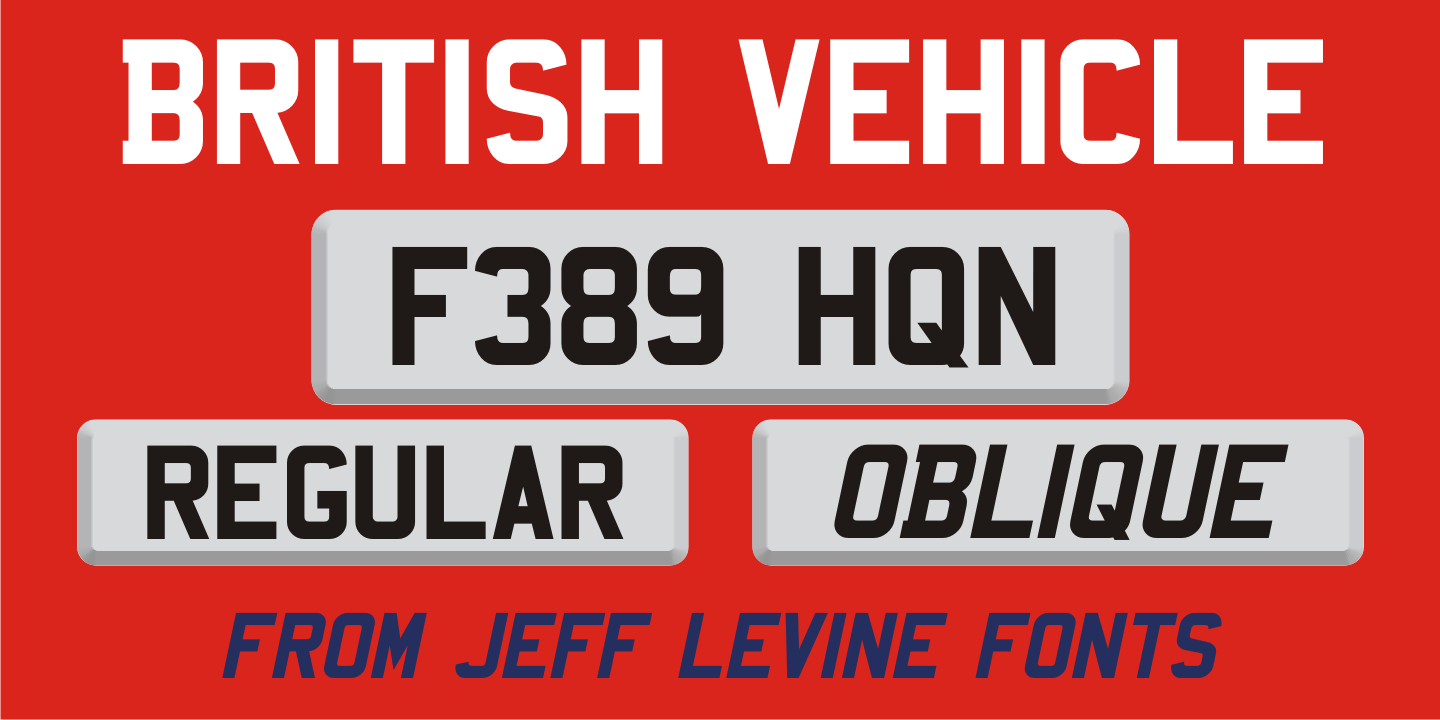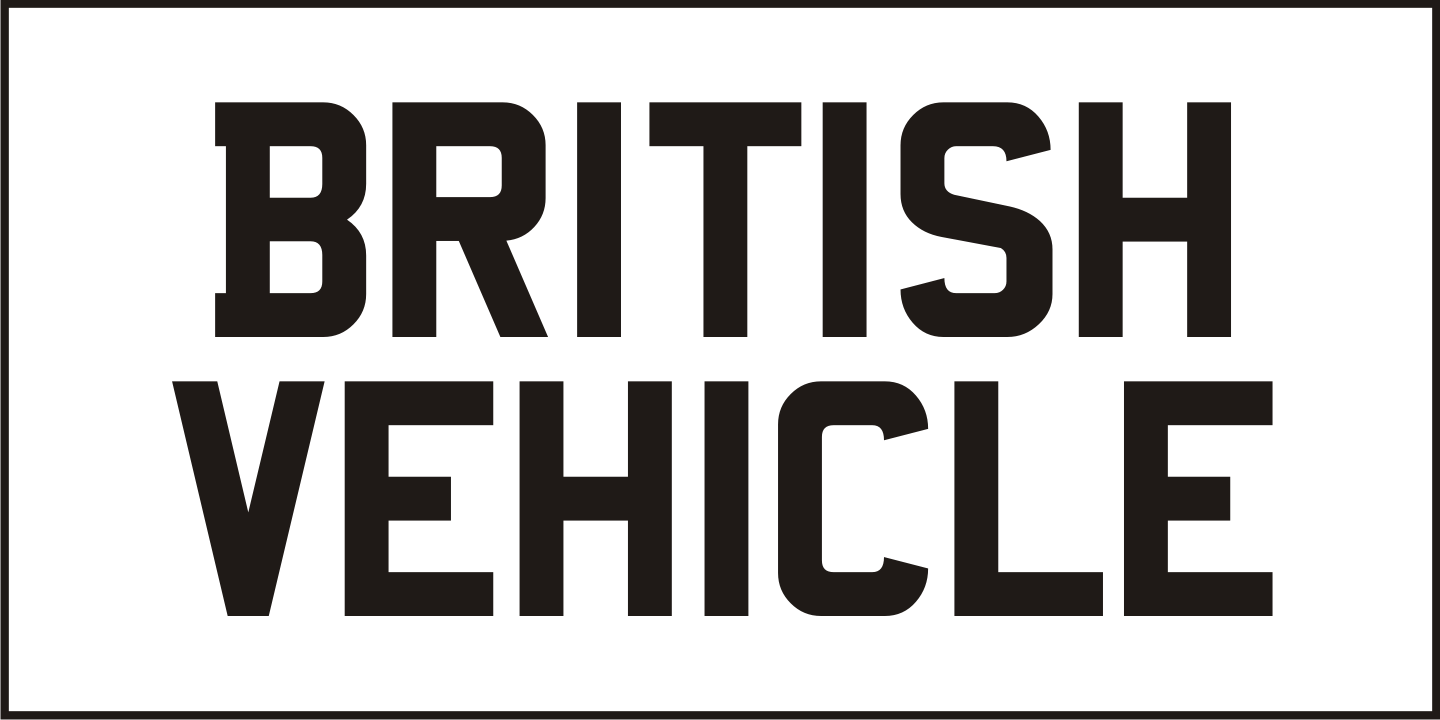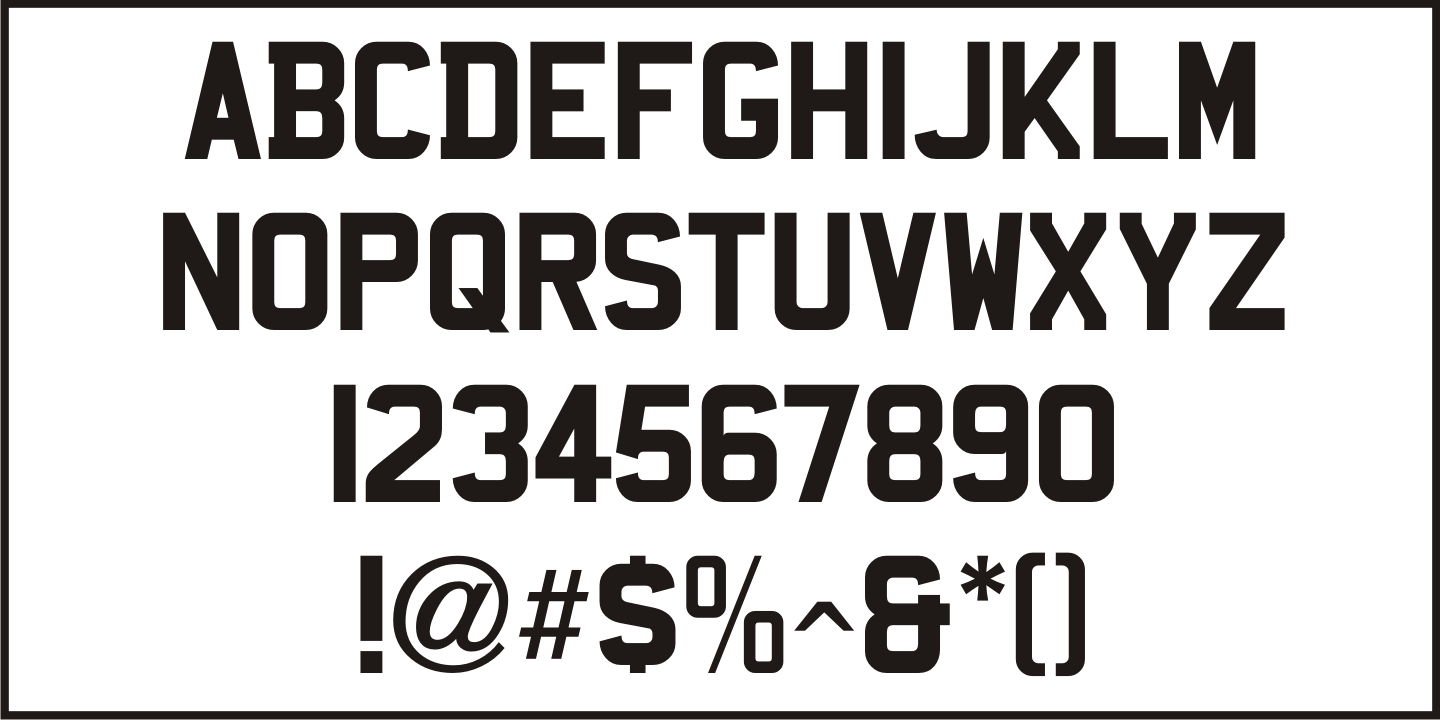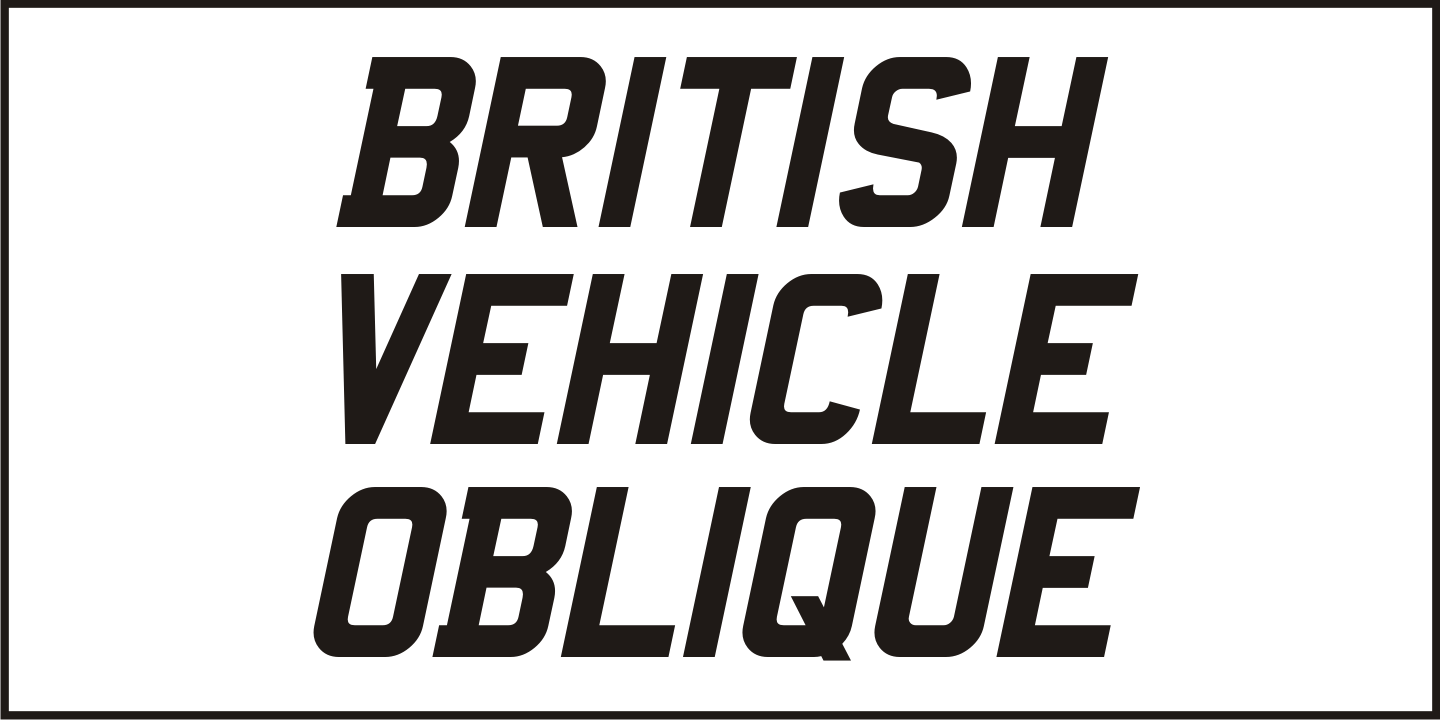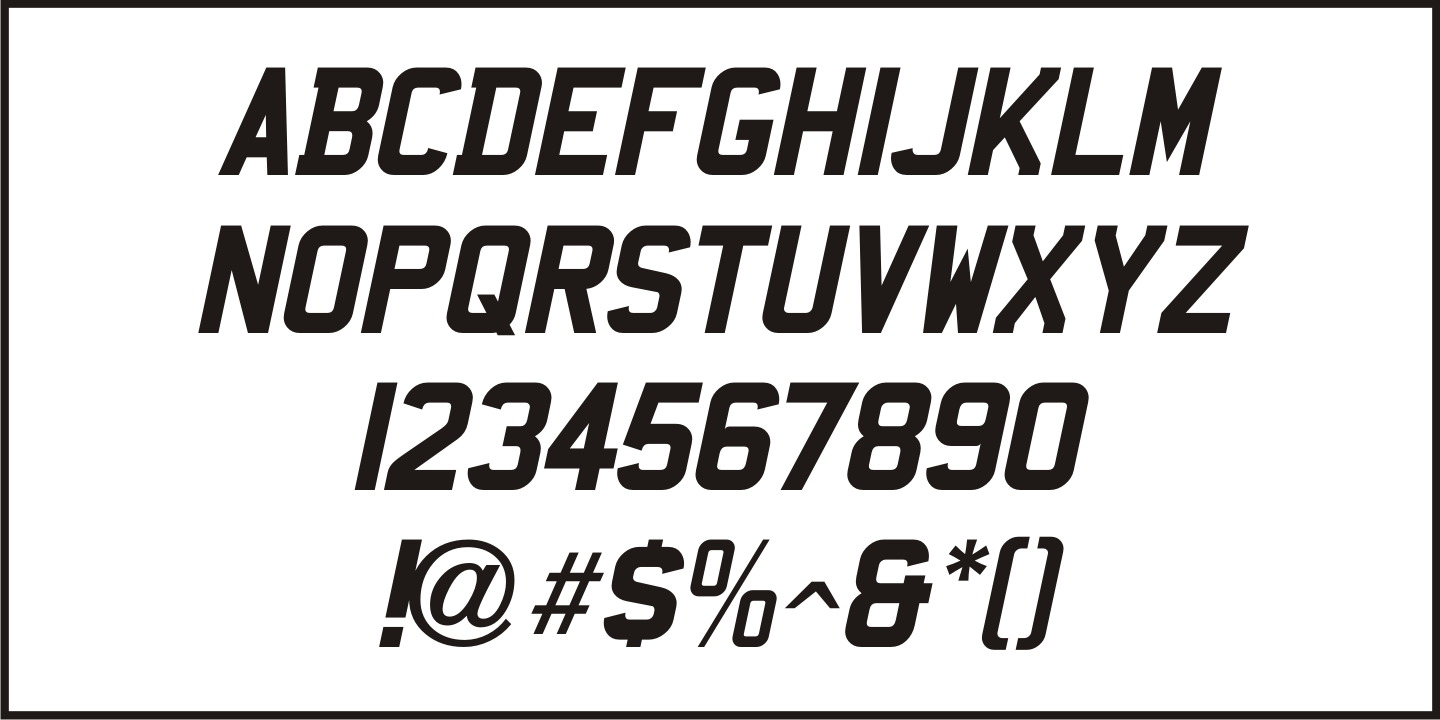
British Vehicle
Auto license plates in the United Kingdom are made with a typeface originally designed by (and named for) Charles Wright and must meet strict criteria as to type height, weight and spacing.
A bold sans serif design; British Vehicle JNL is available in both regular and oblique versions.